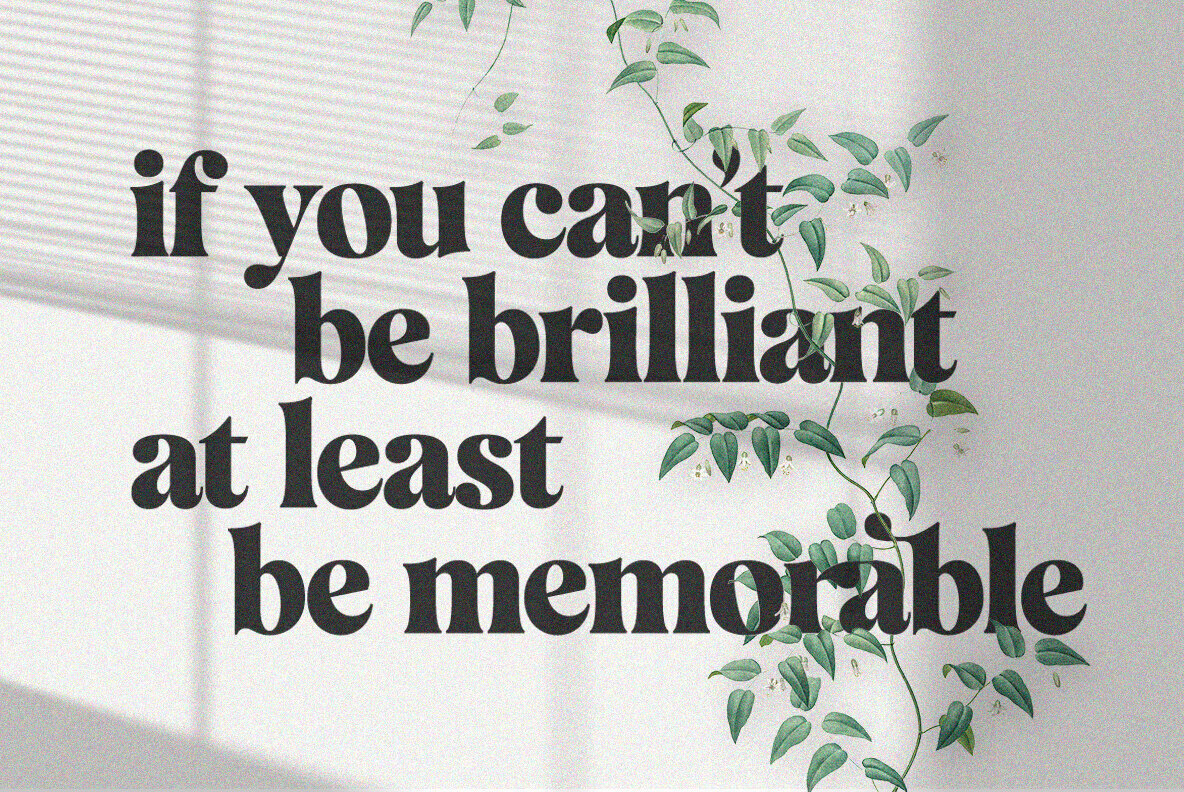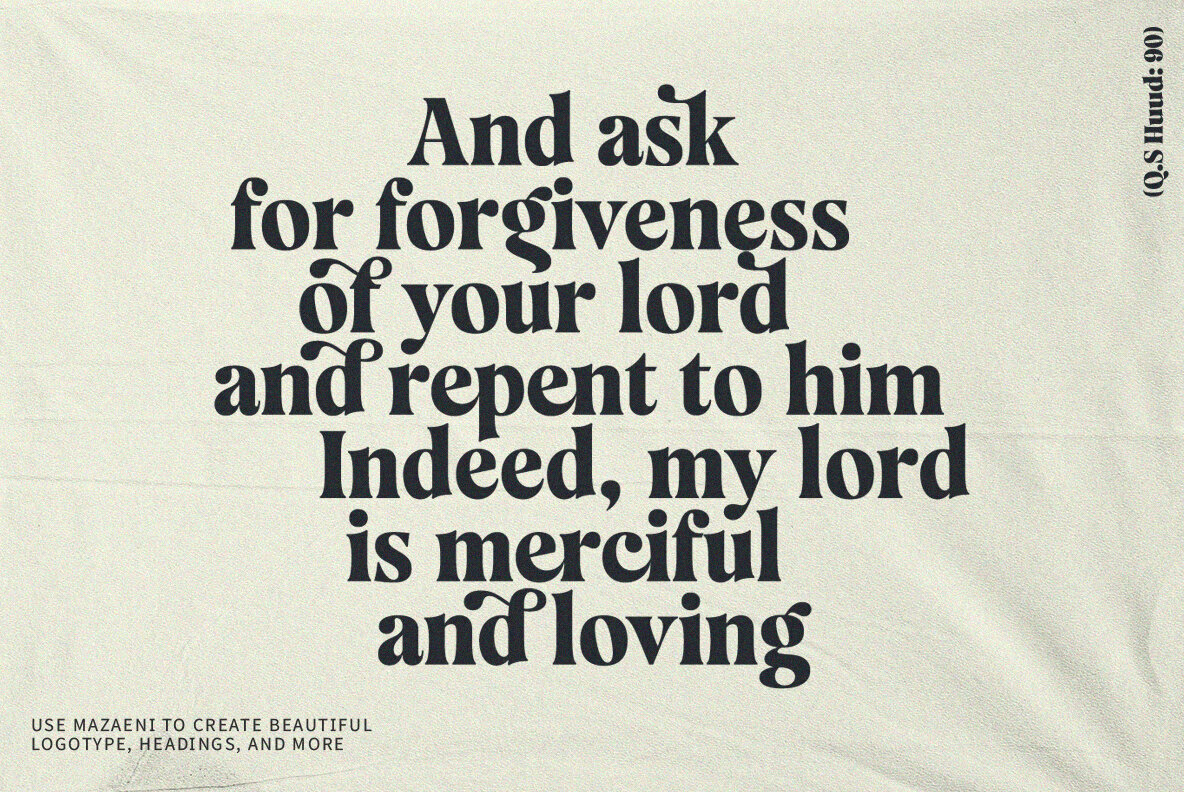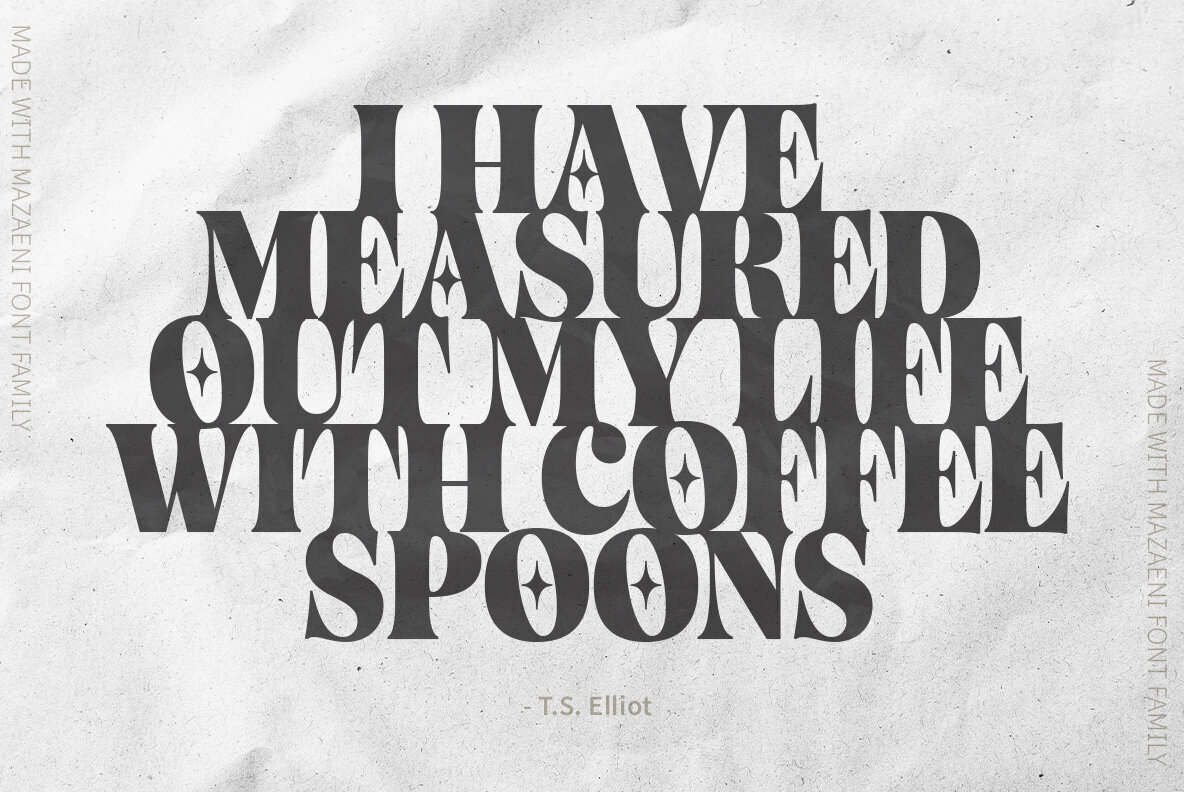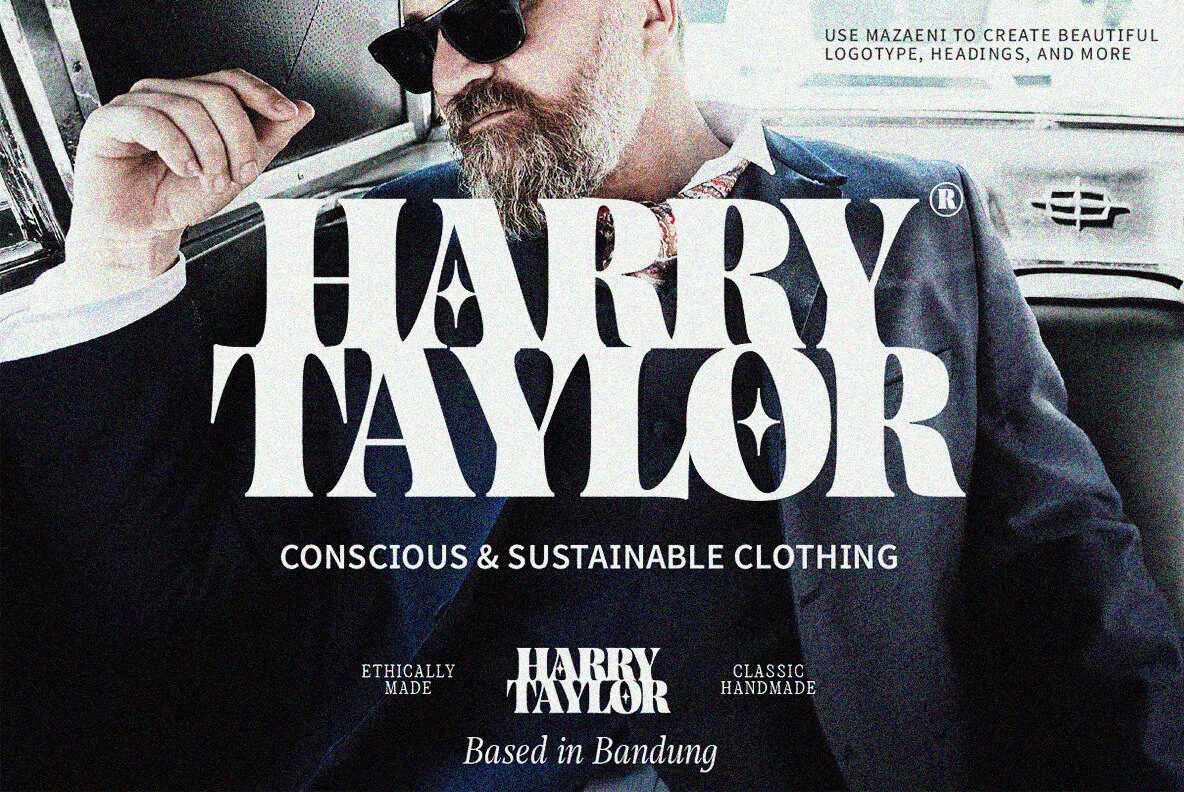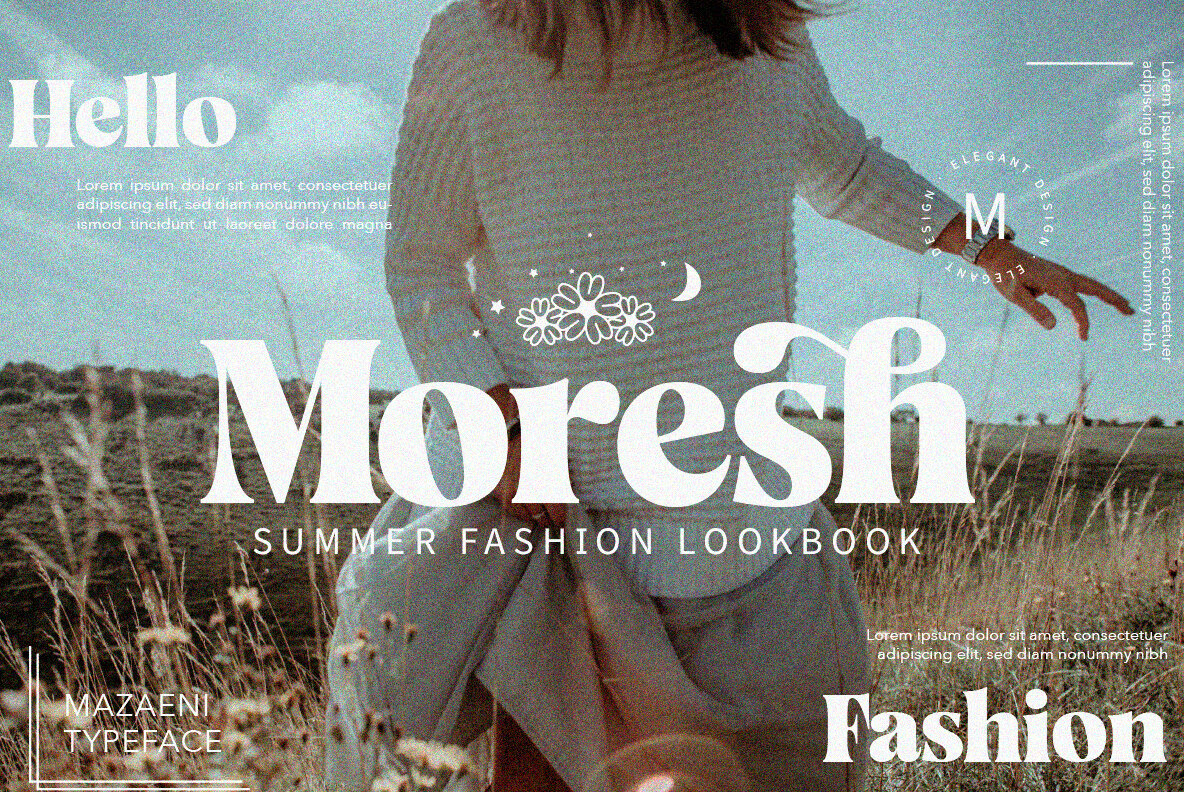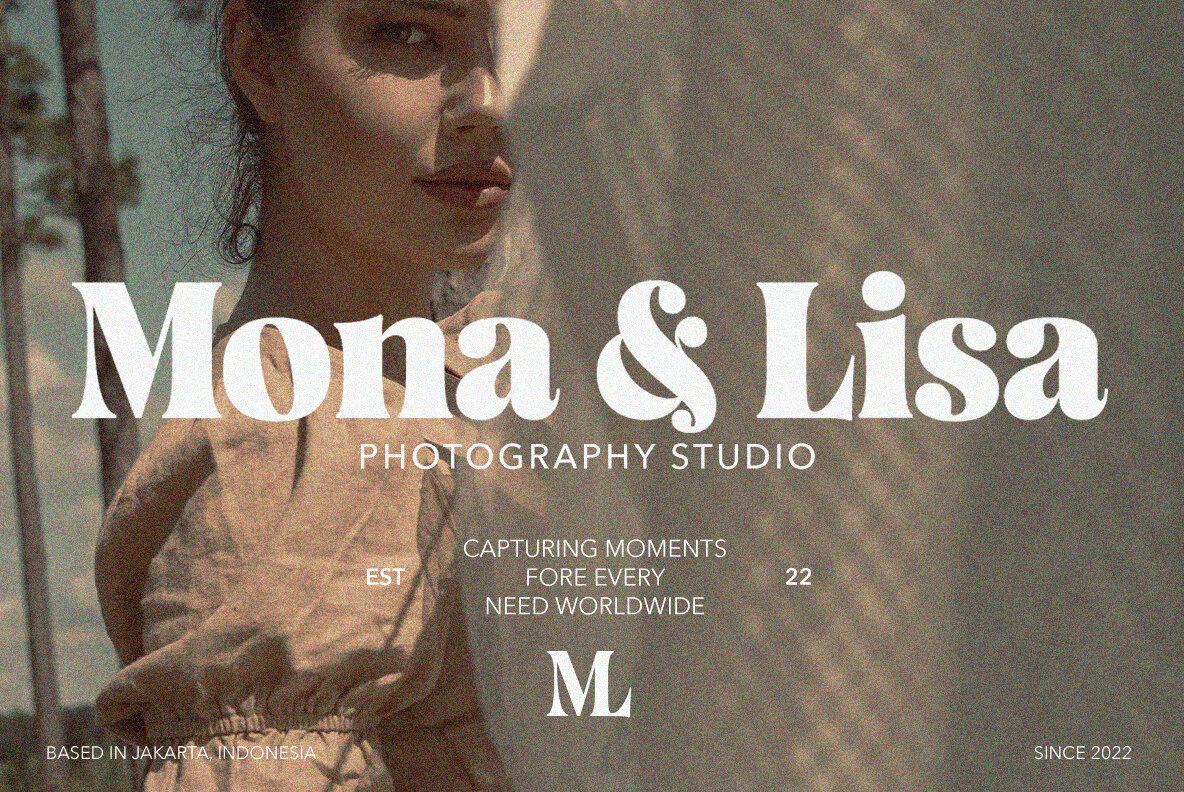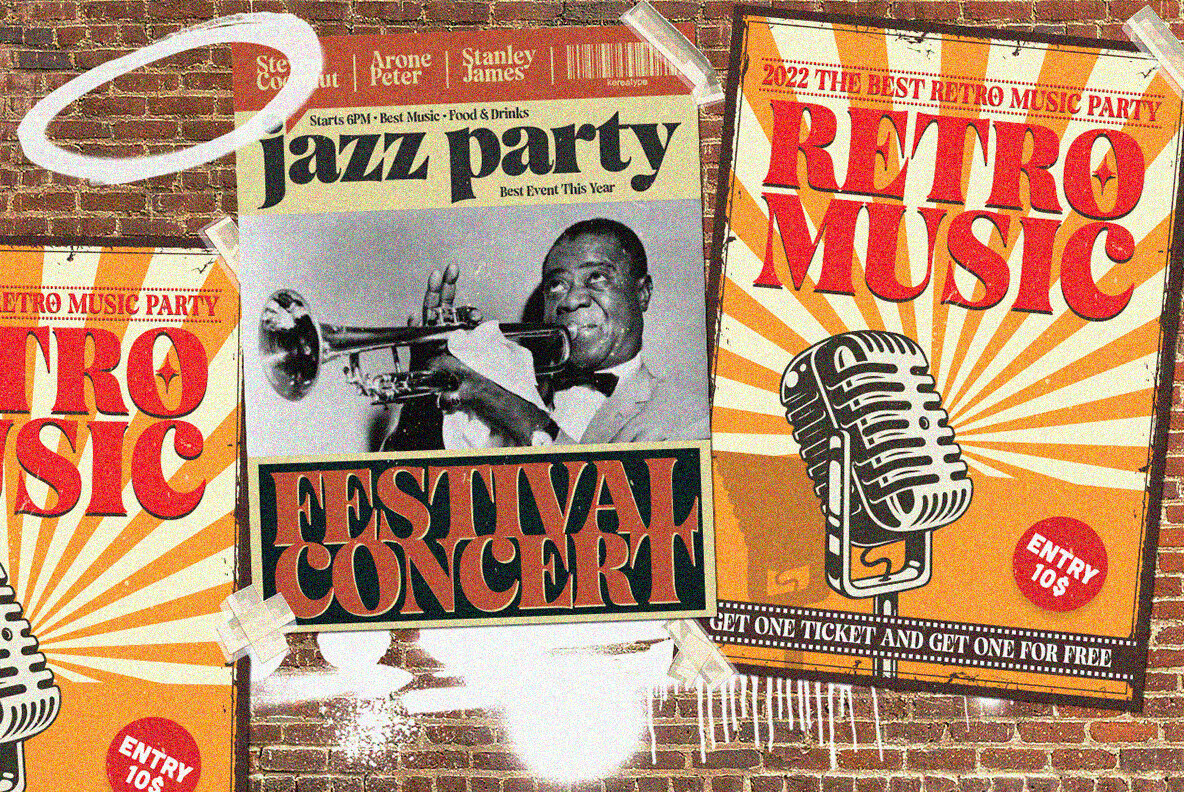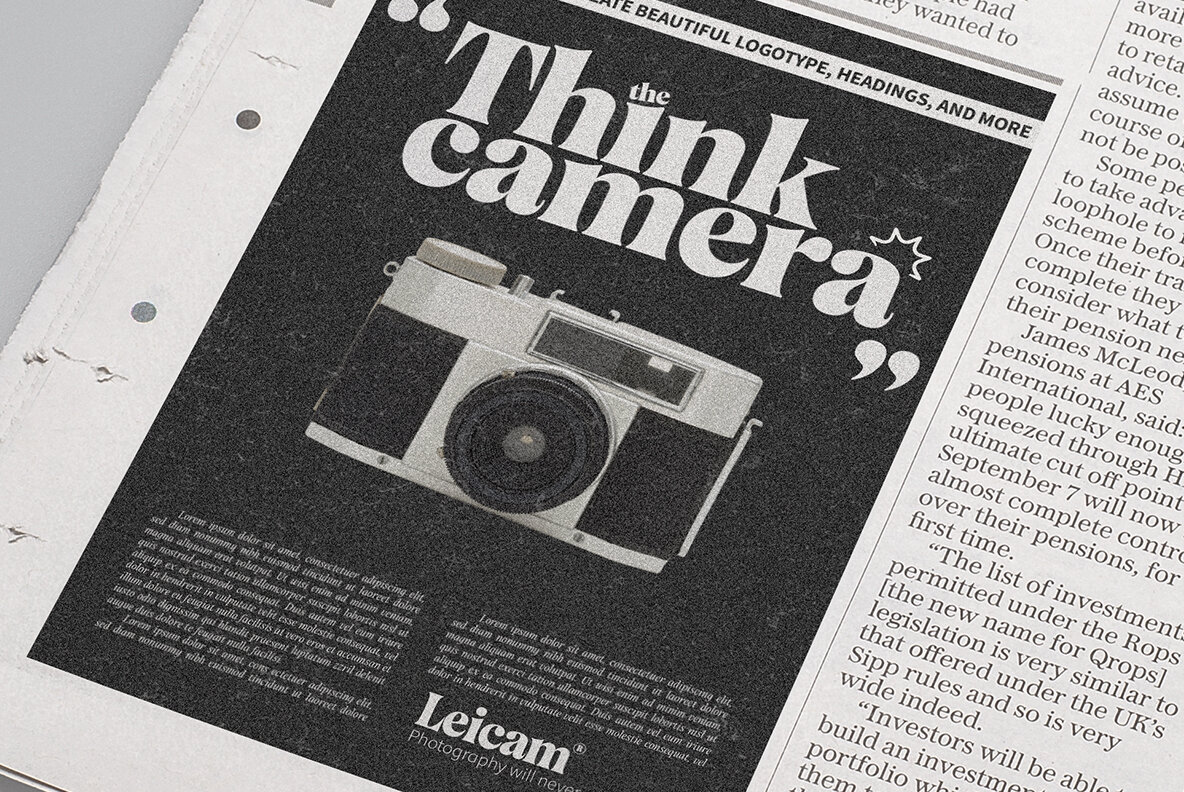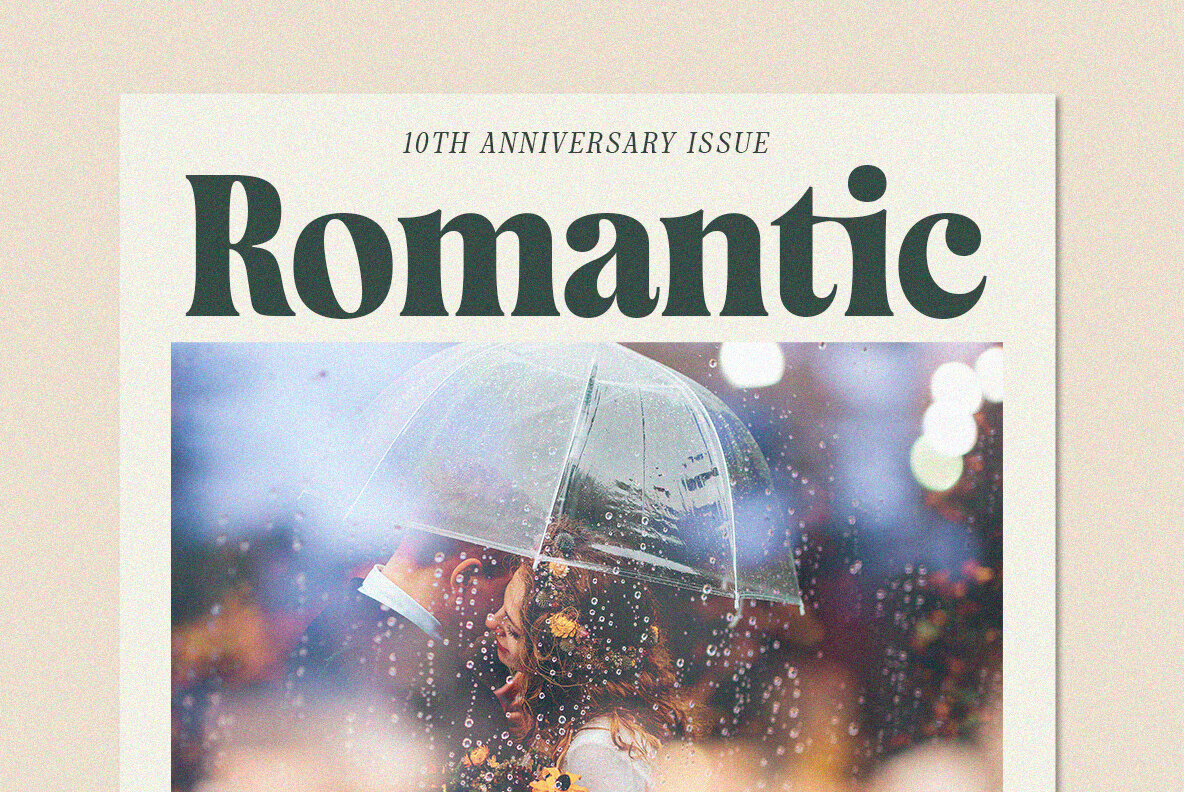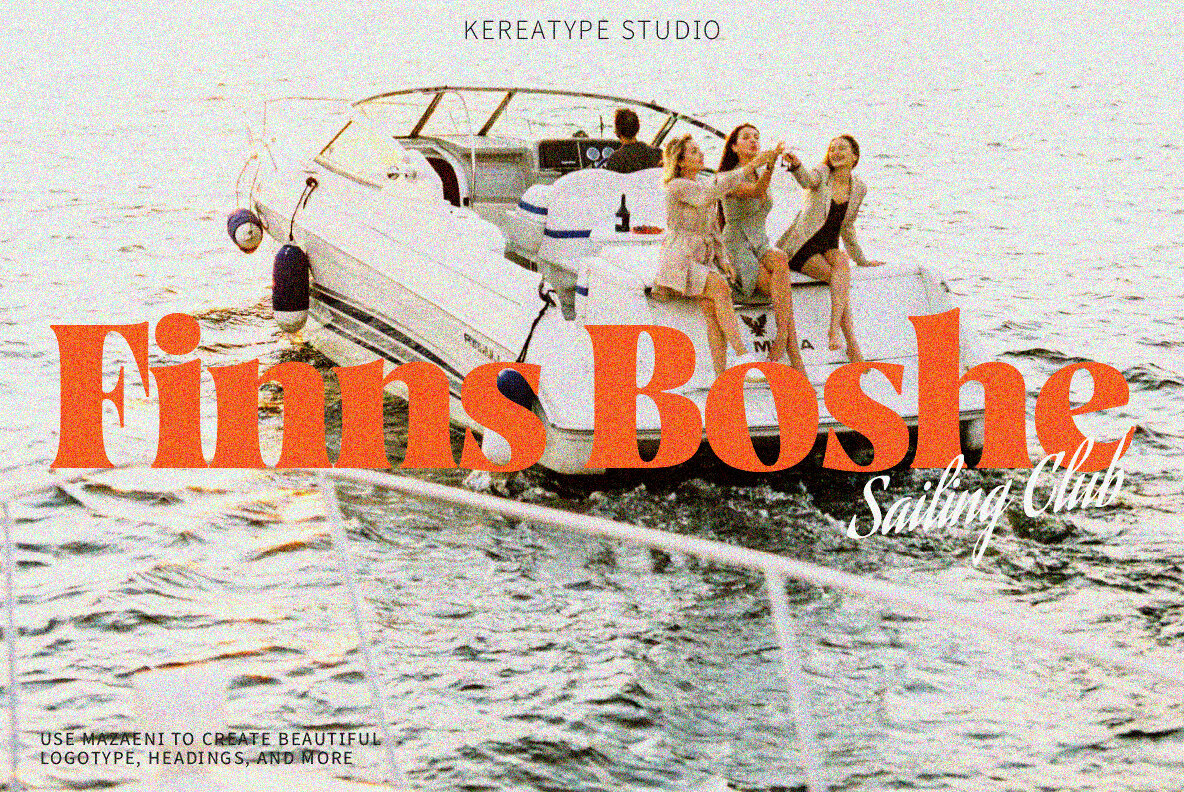
Mazaeni Font
A bold serif font family with an elegant and versatile design, Mazaeni is perfect for use in a wide range of applications including logos or posters. The typeface includes language support that works well across different cultures as it offers ligatures to suit your needs; if this isn't enough then there are OpenType alternates available on top!